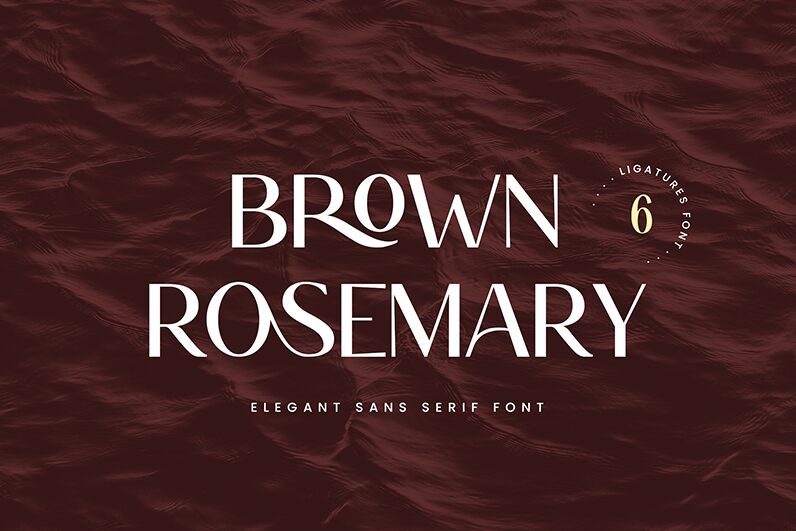
BrownRosemary
Brown Rosemary font by UI Creative is an elegant sans serif font with a contemporary aesthetic. Defined by high contrast in line width and letterform angles, the typeface expresses sophistication and refinement. Varying thin and thick sections within its basic geometric forms add harmony to the final layout result.
Use it for fashion branding, books/magazine titles, packaging designs like invitations or greeting cards, websites/blogs headings, eBooks covers, movie/journal covers.